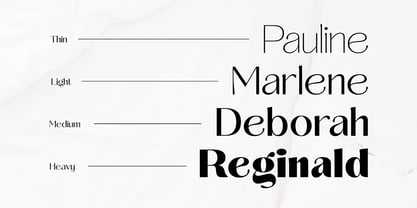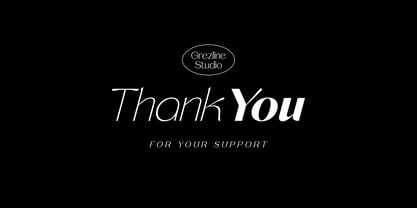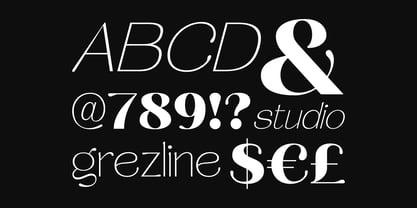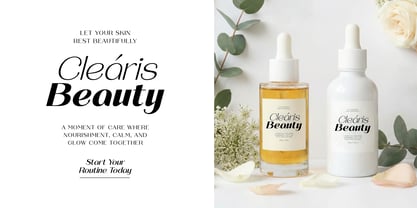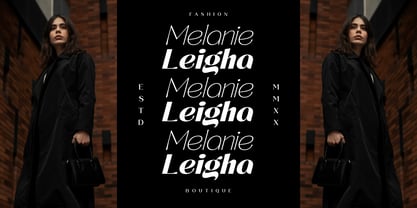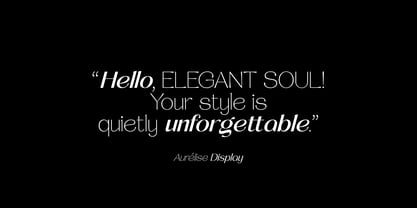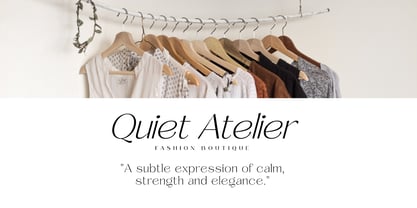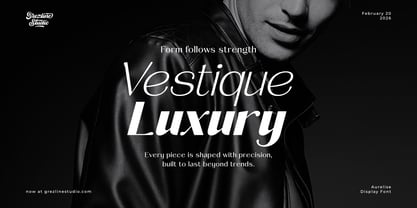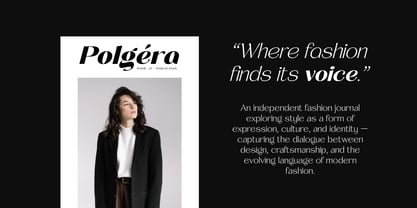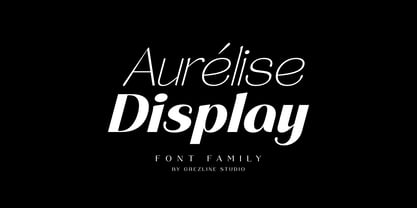
Aurelise
The Aurelise Font Family was designed by Akhmad Reza Fauzi and published by Grezline Studio. Aurelise contains 18 styles and family package options. More about this family
Introducing Aurelise, a refined sans serif display font family designed to bring elegance and modern sophistication to your typography. Crafted with curves and distinctive letterforms, this typeface delivers a stylish presence that instantly elevates any visual composition. Aurelise blends the clarity of a sans serif structure with expressive display details, creating a look that feels both contemporary and timeless. It works beautifully for branding, editorial layouts, fashion campaigns, logos, packaging, and other creative projects that require a polished and memorable typographic voice.   Feature : - 18 Font Family - Multilingual Language - Works on PC & Mac - Simple installations - Accessible in the Adobe Illustrator, Adobe Photoshop, Adobe InDesign, even works on Microsoft Word. Thank you! Grezline Studio - Akhmad Reza Fauzi